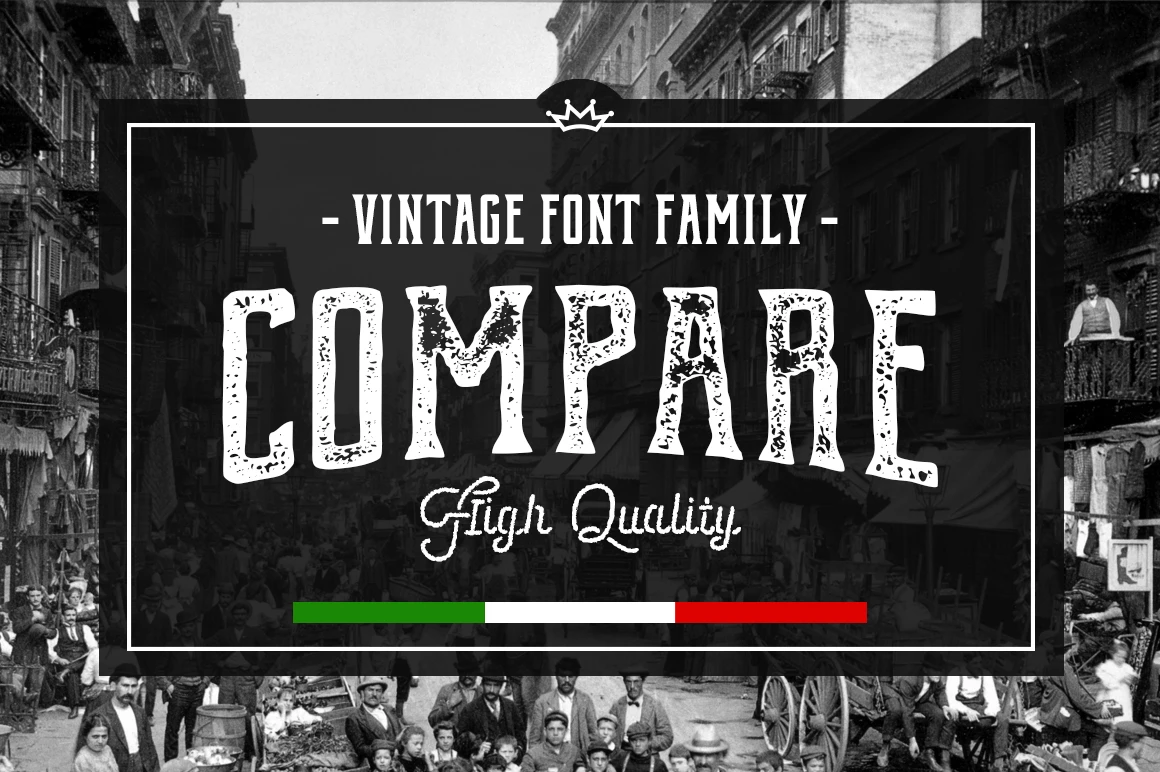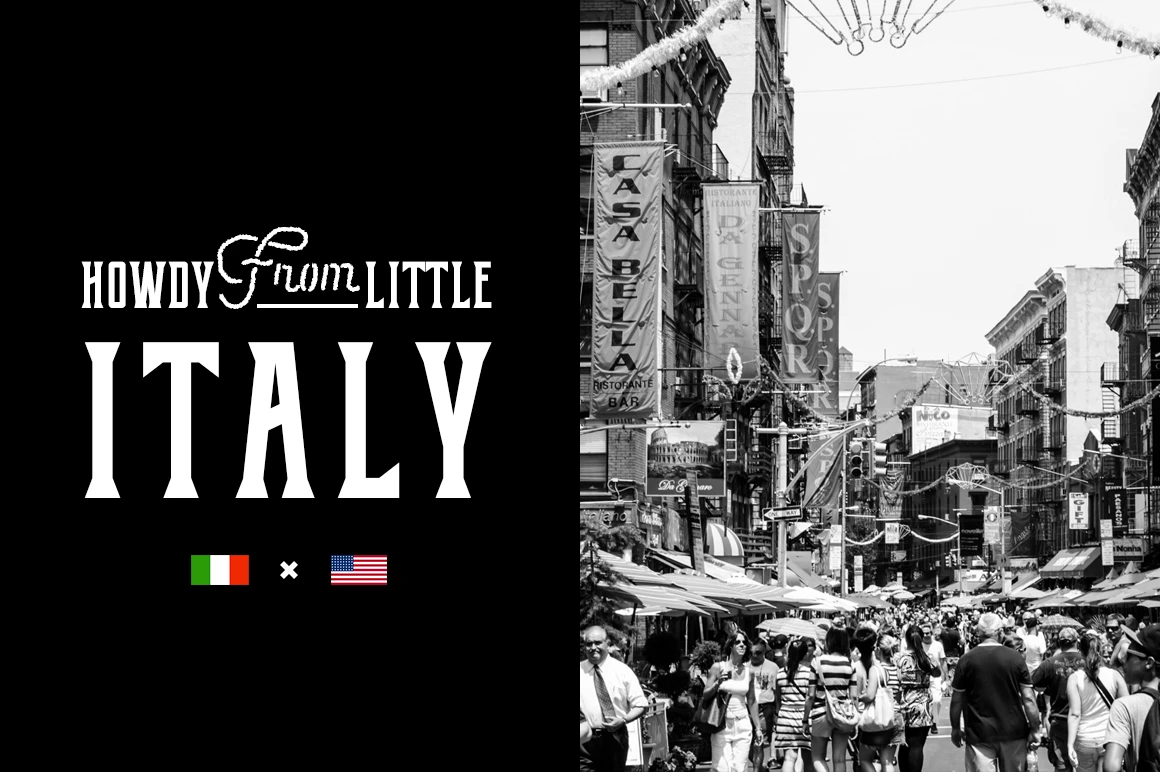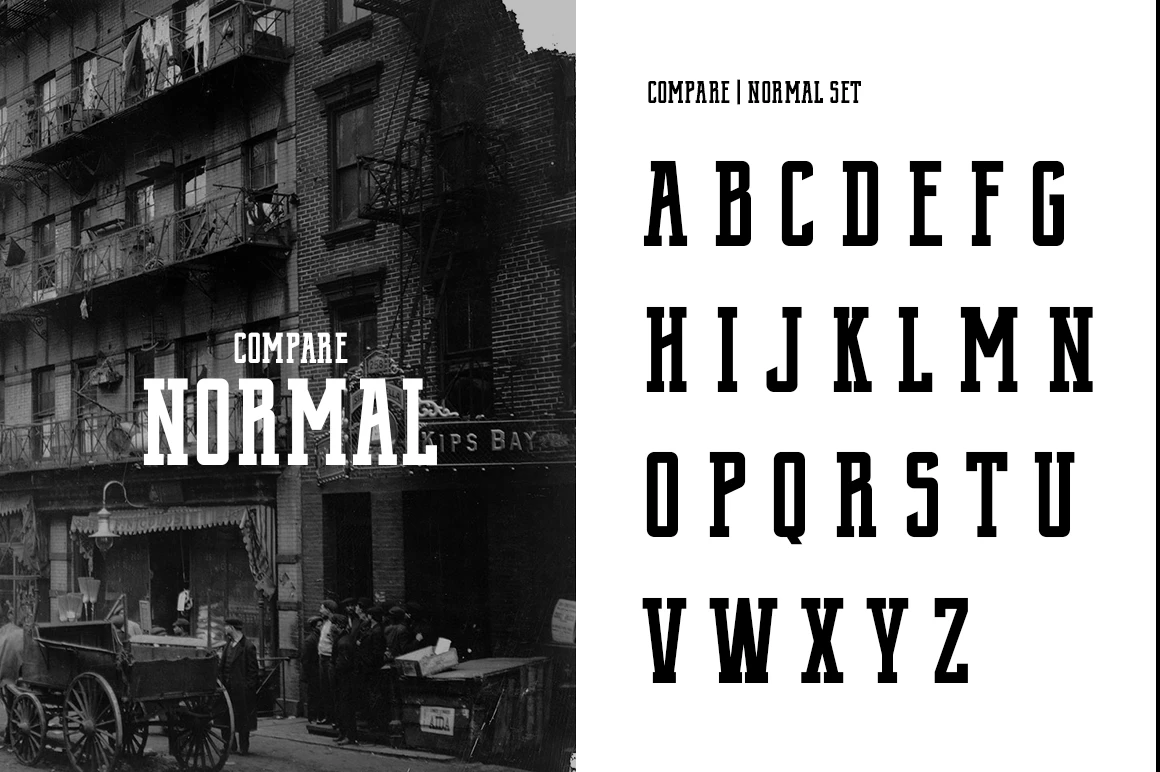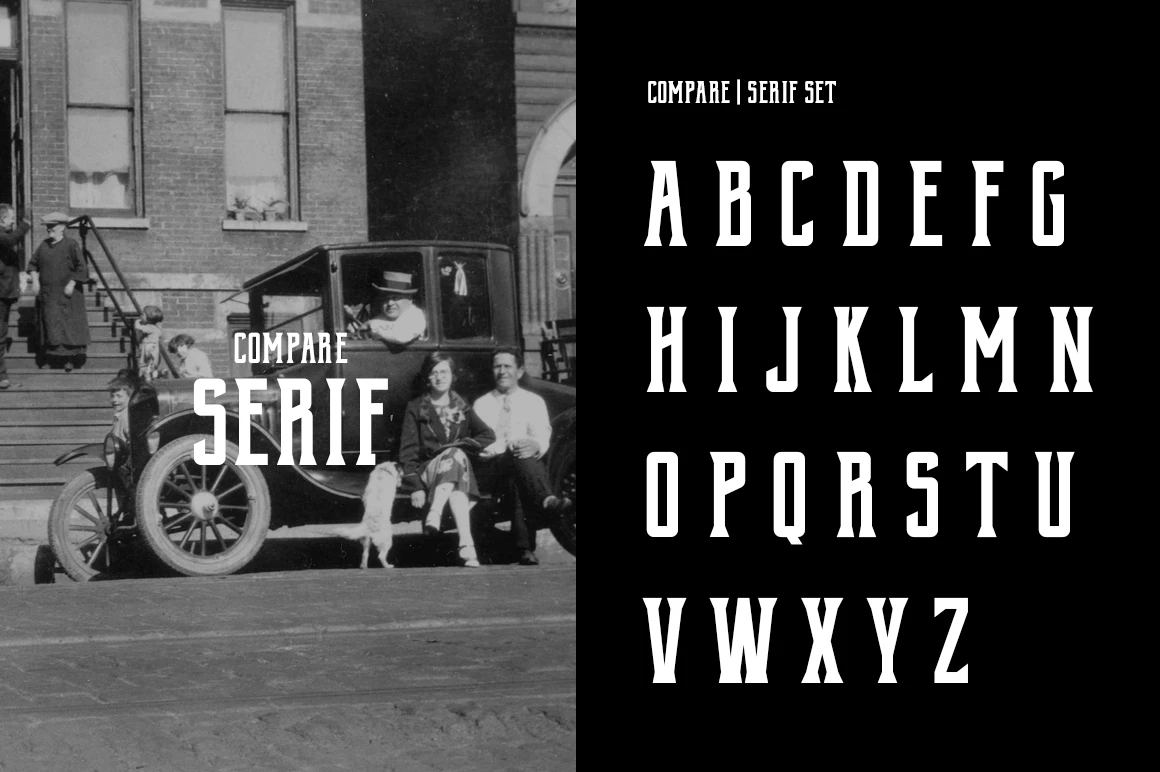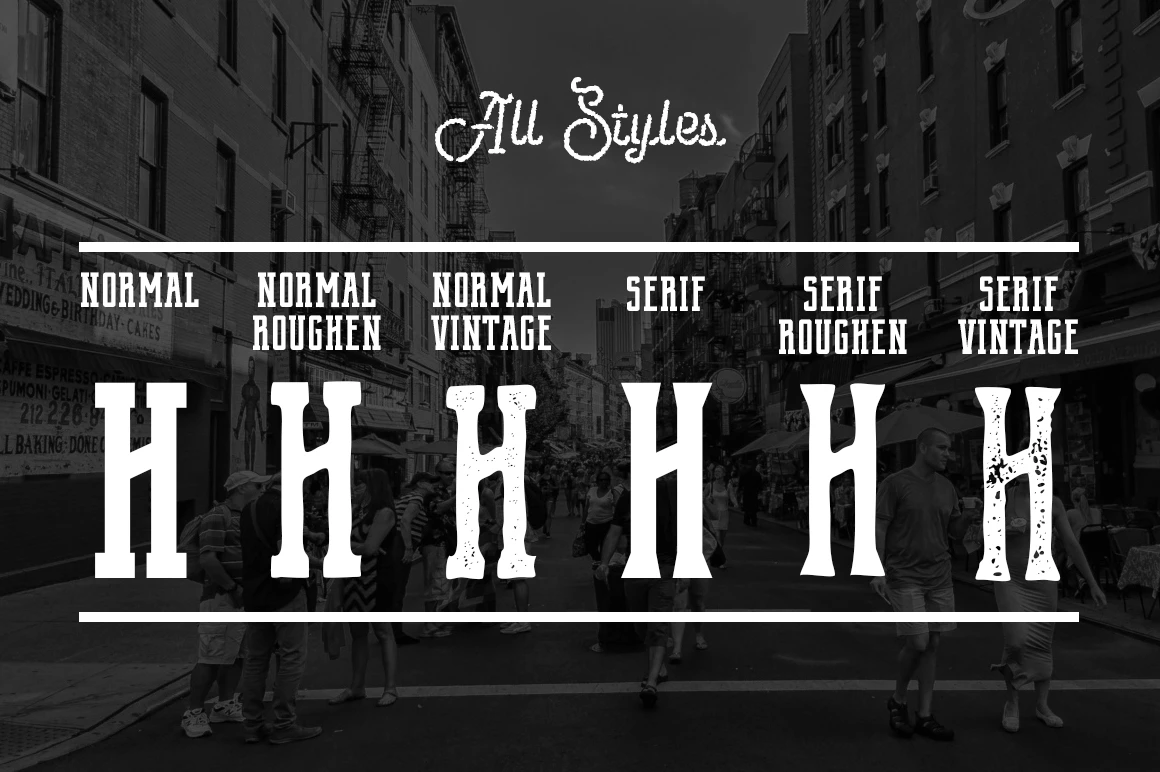
Compare Font Family
Compare is a display font family influenced by classic mafia themes and vintage aesthetics. It features condensed letterforms with a bold, cinematic feel. Each font comes in three distinct styles, offering options for dramatic emphasis and visual contrast. Ideal for posters, movie titles, book covers, branding, and editorial layouts with a strong, retro attitude.
Styles included • Rough • Rough Vintage • Smooth
Compare Serif
Styles included • Rough • Rough Vintage • Smooth
Compare font styles